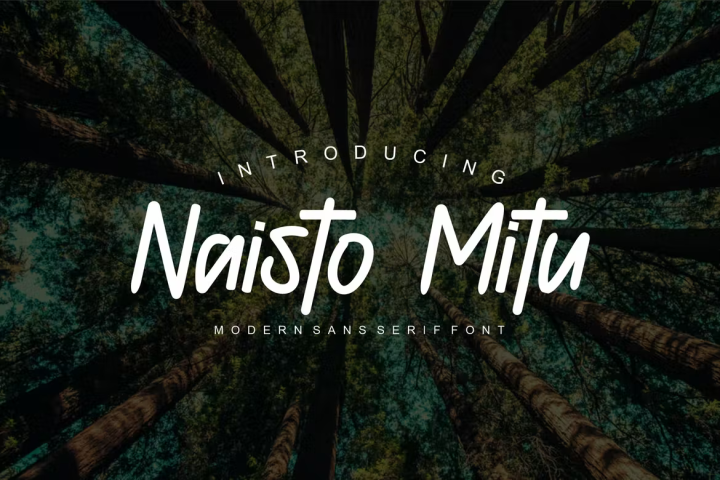
Naisto Mitu Font
Naisto Mitu Font a condensed sans serif font. It has a elegant, classy look and modern. It’s a great font for fashion, apparel projects, signature, album cover, logo, branding, magazine, social media, & advertisements, but also works great for other projects.